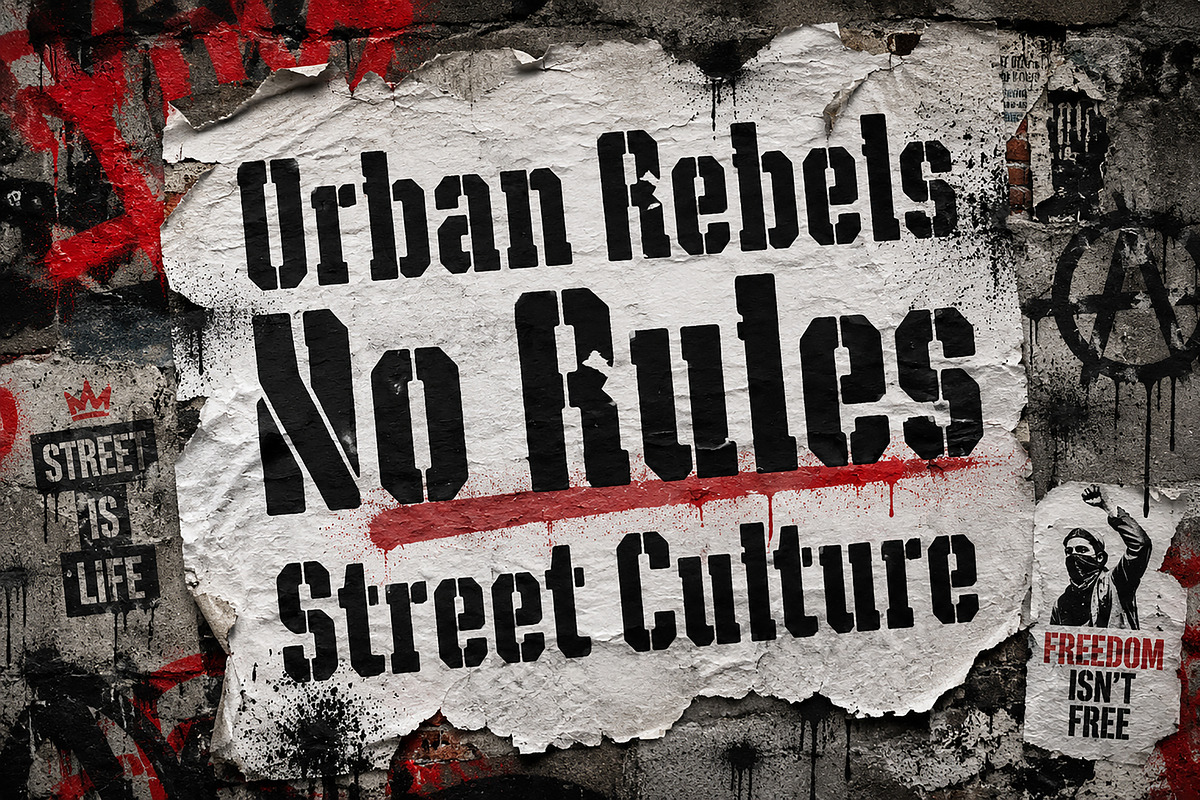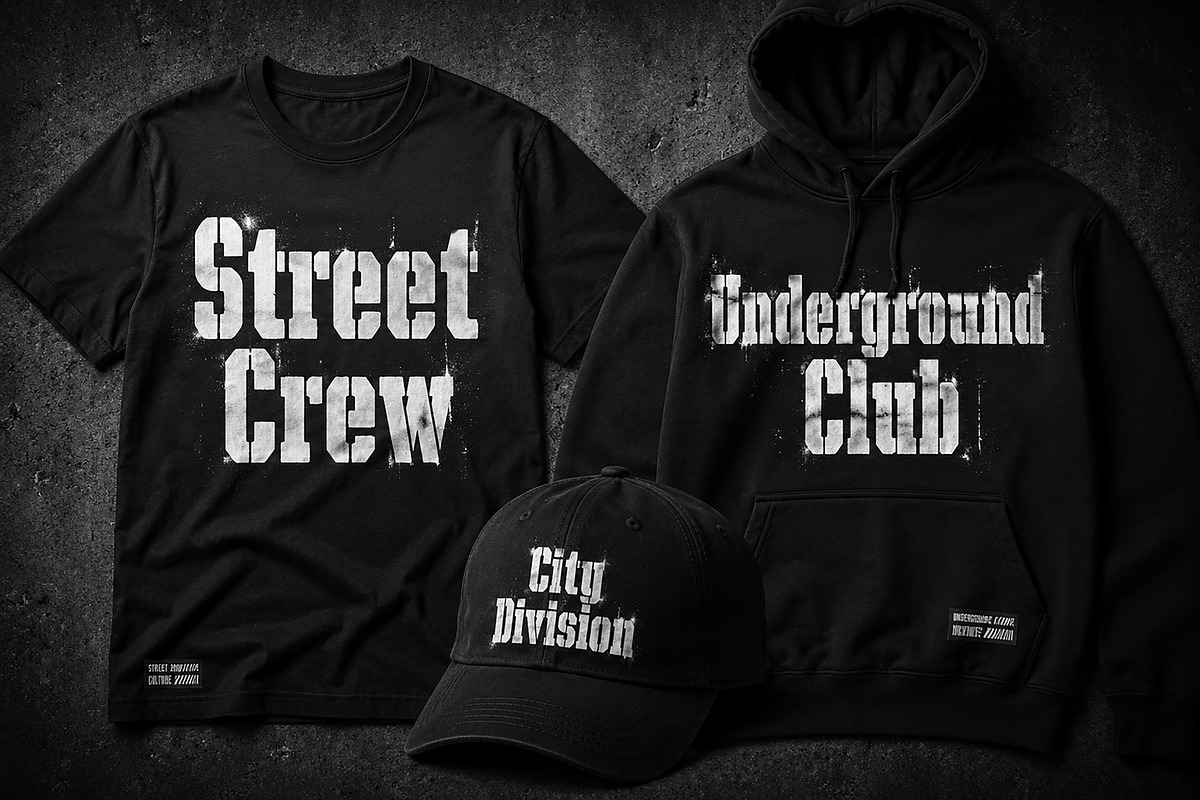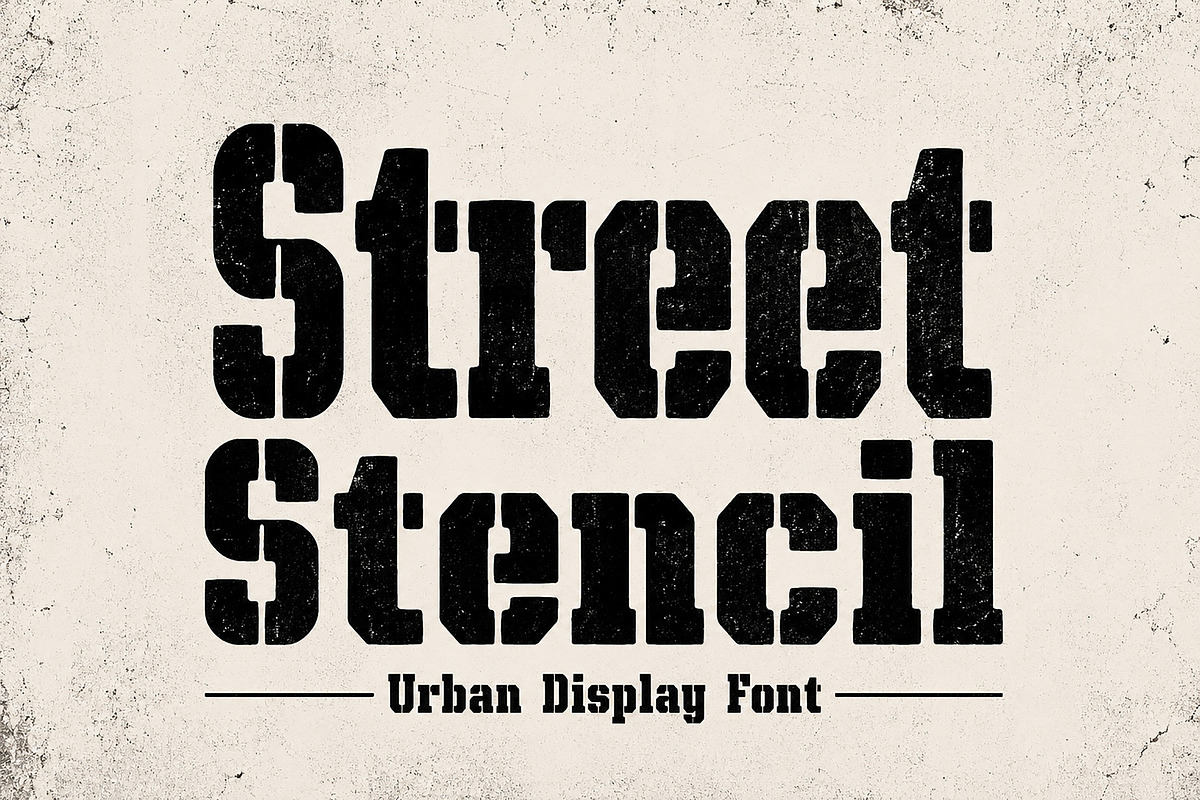
Street Stencil
Street Stencil – Urban Display Font
Street Stencil is a bold urban display font inspired by street culture, military stencils, industrial signage, and underground graffiti aesthetics. With its strong geometric cuts and rugged stencil details, this font is perfect for creating eye-catching designs with a raw and modern street-style attitude.
Whether you're designing posters, apparel, logos, branding, packaging, stickers, or social media graphics, Street Stencil delivers a powerful visual impact that stands out instantly.
Streetwear Branding
Urban Posters & Flyers
Military / Tactical Designs
T-shirt & Apparel Graphics
Sticker & Patch Designs
Industrial Logos
Sports & Gaming Titles
YouTube Thumbnails
Album Covers
Print-on-Demand Products
Bold Stencil Style
Clean & Easy to Use
Bring a gritty urban atmosphere to your next project with Street Stencil — the perfect typeface for bold and rebellious designs.